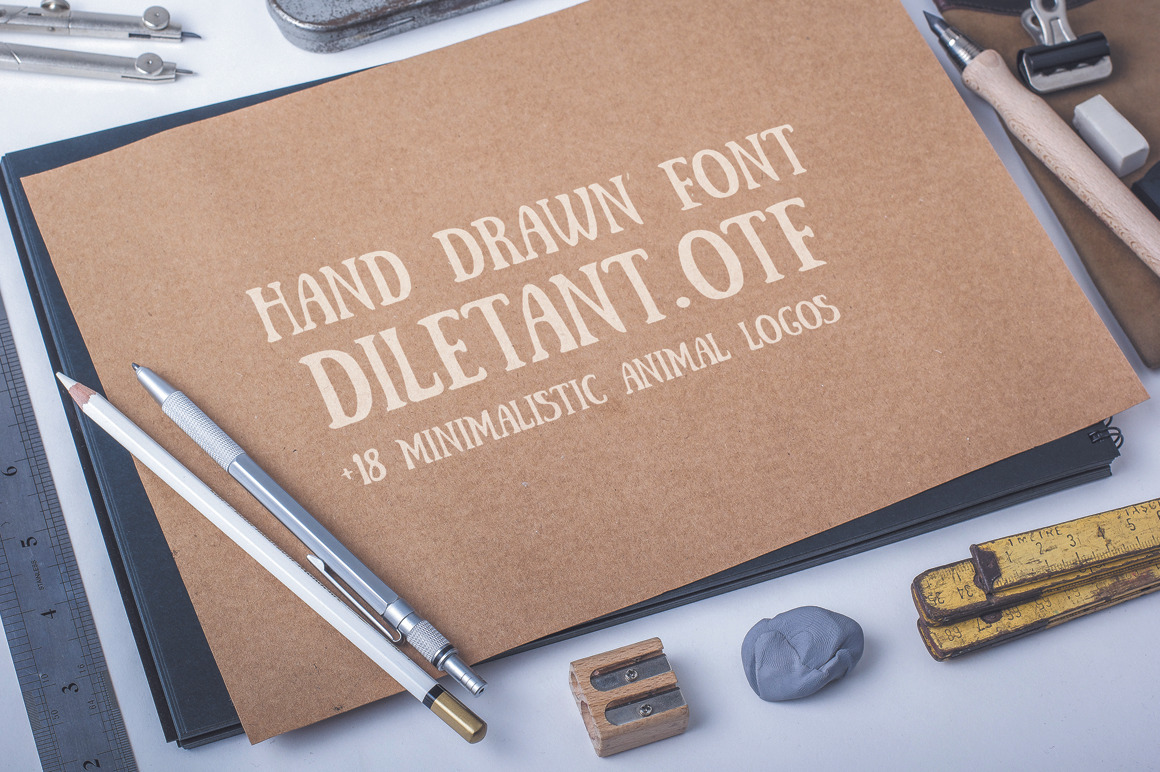
Hand drawn font + 18 logotypes
Minimalistic animals - monkeys, deer, fox.
- 1 file font DILETANT.OTF (Font contains only uppercase letters and figures)